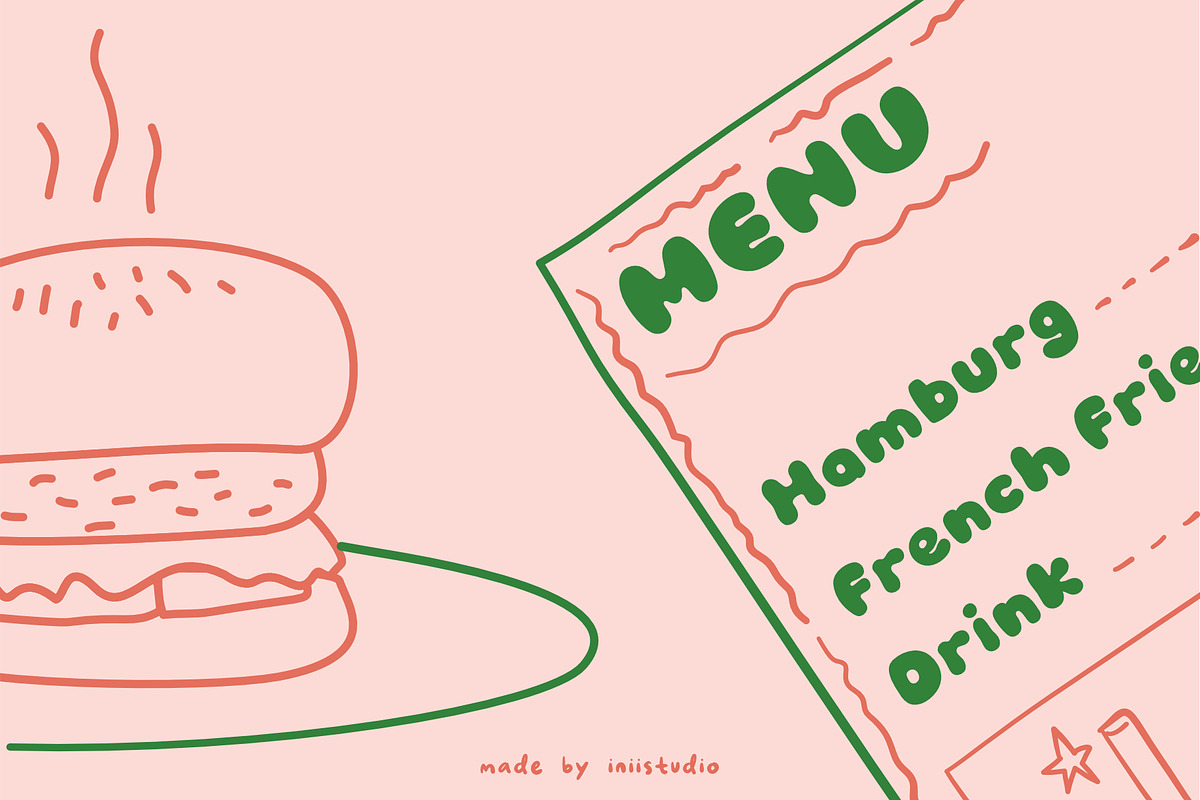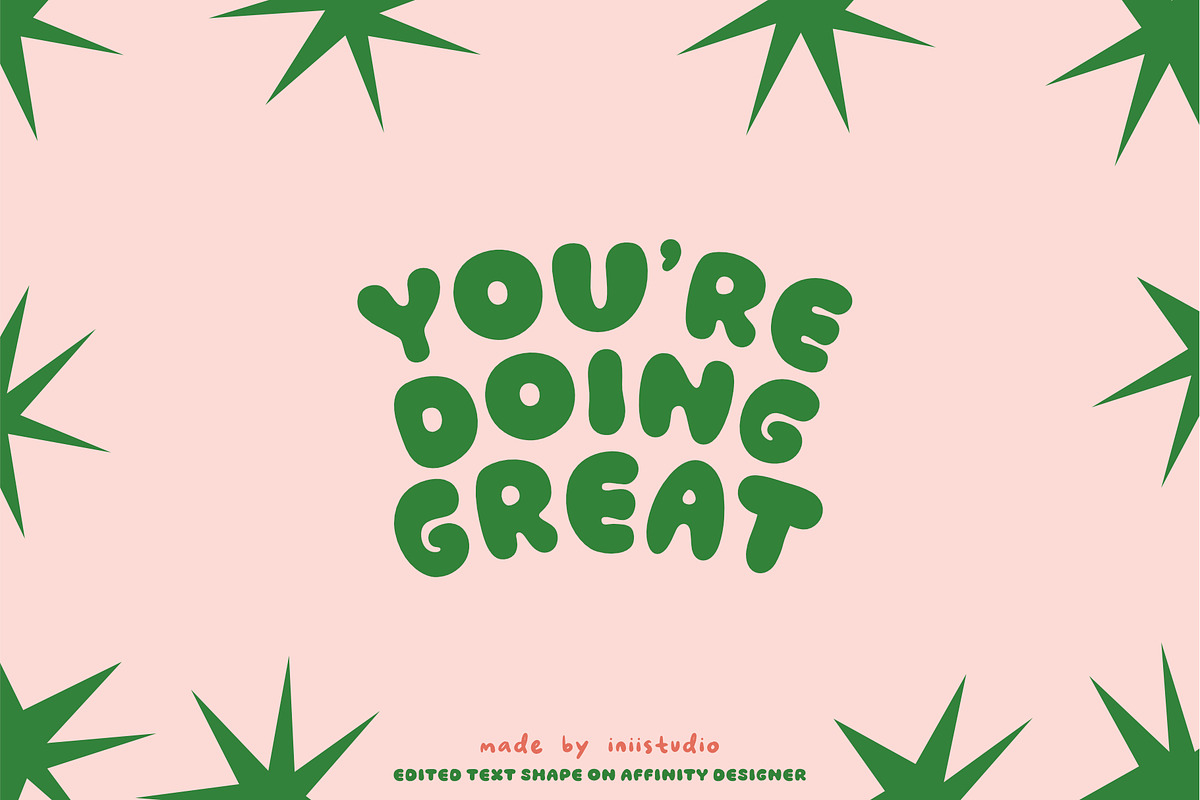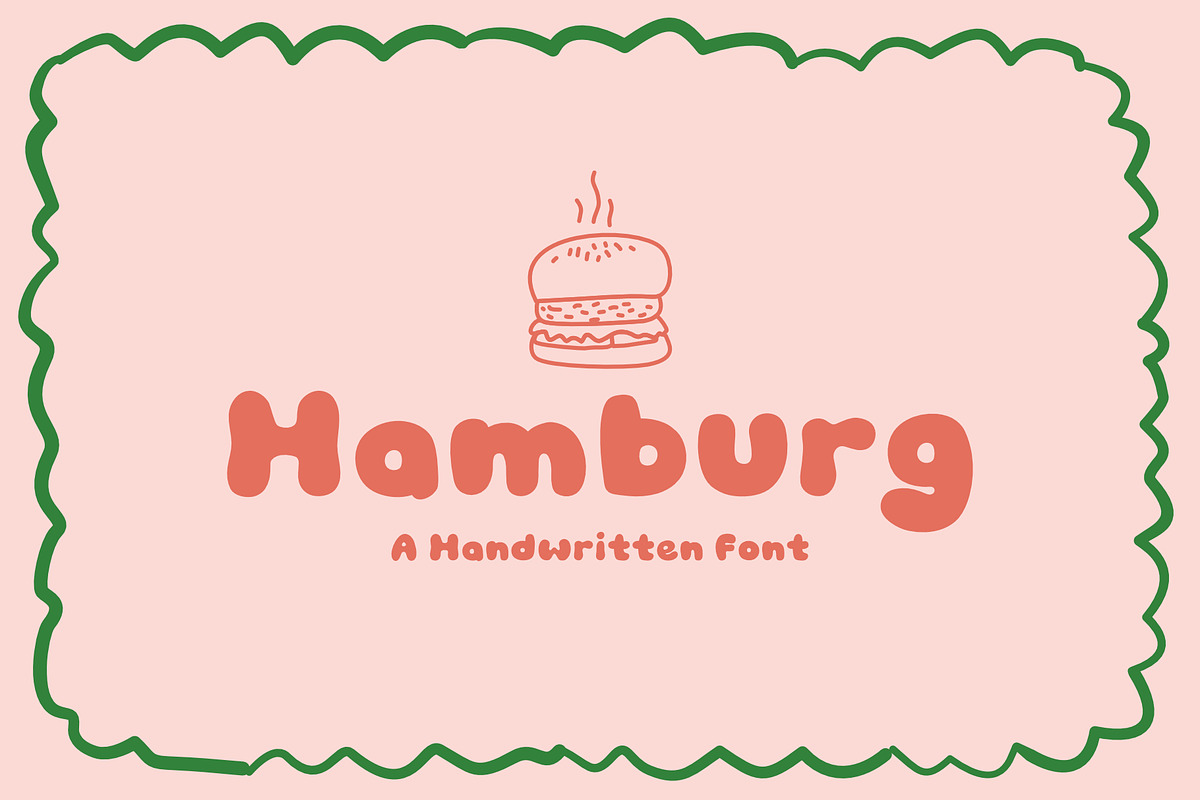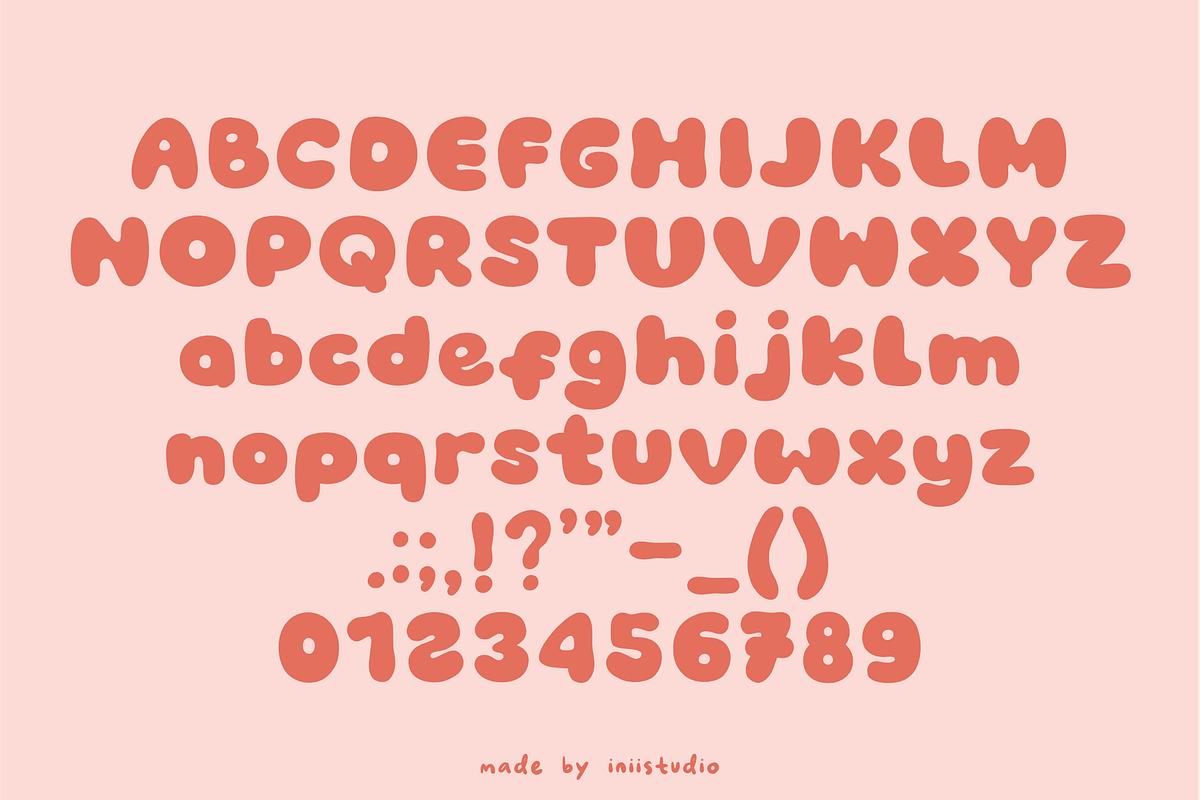
Hamburg - A Handwritten Font
Hamburg is a bold and clean font, great for modern designs, branding, and projects that need a strong yet stylish touch. Its sleek and versatile design makes it suitable for a wide range of creative applications, from logos and packaging to posters and social media graphics. Whether you're aiming for a contemporary, minimalist look or something with a bit more character, Hamburg delivers with confidence and clarity.
This font is designed to be both eye-catching and highly readable, ensuring your text stands out without overwhelming the design. Its balanced proportions and smooth curves create a professional yet approachable feel, making it a great choice for businesses, creatives, and designers looking for a fresh, modern aesthetic.